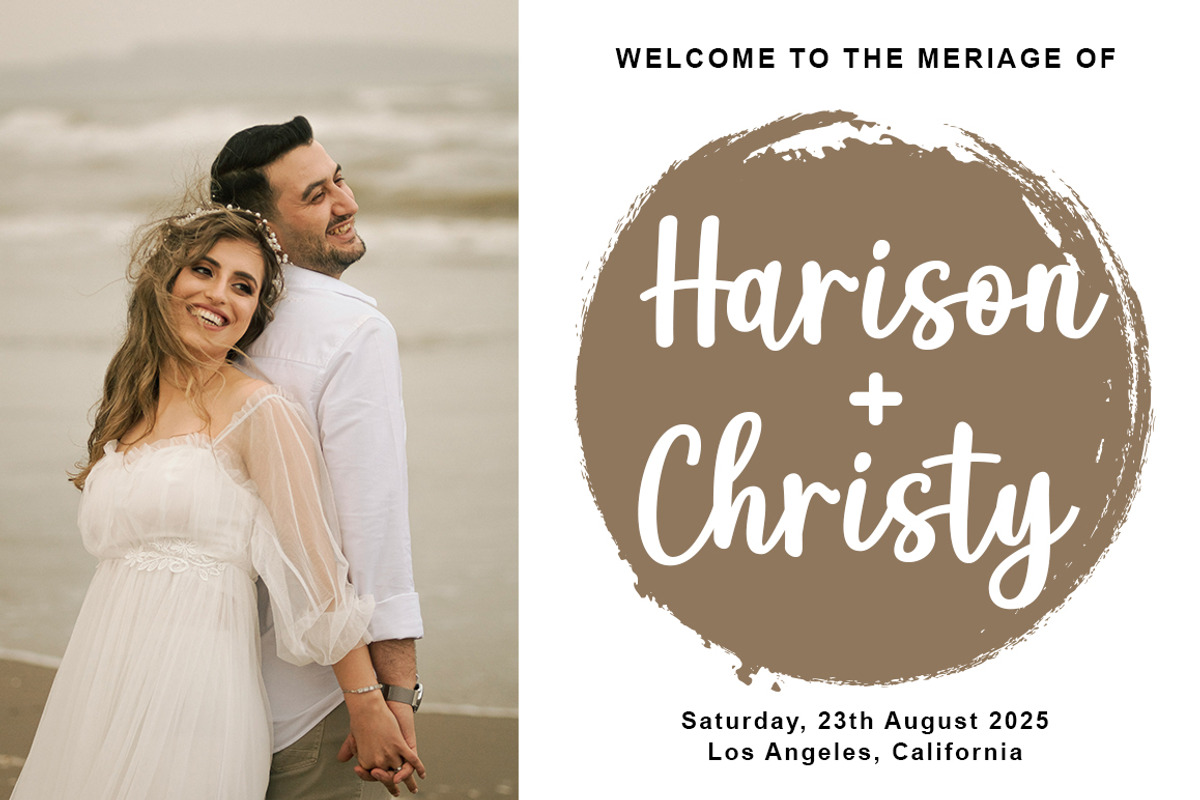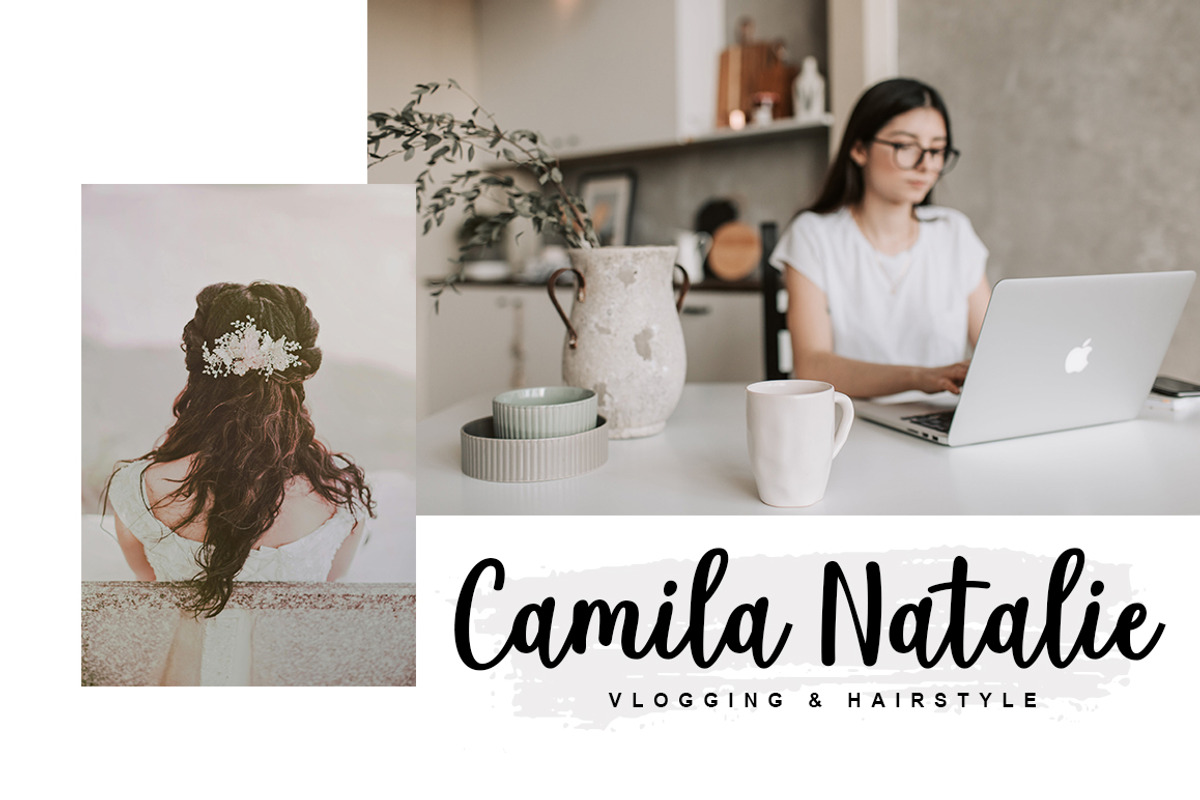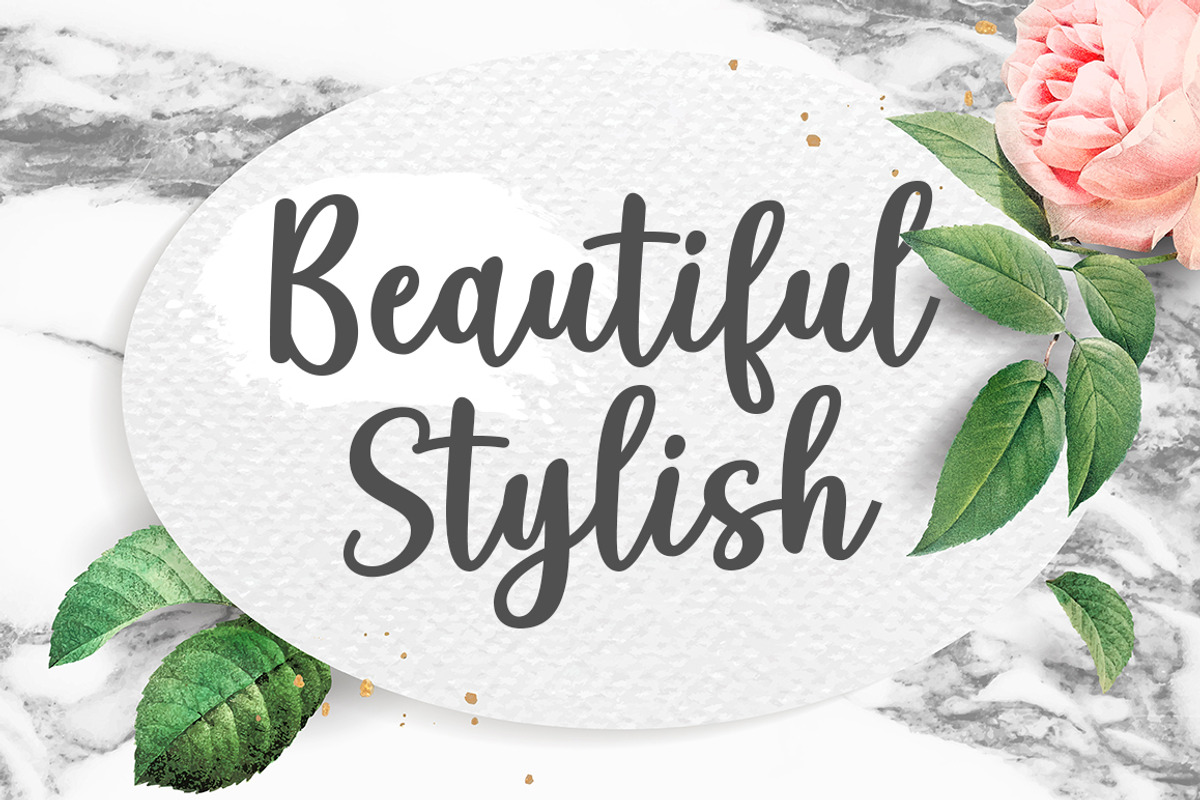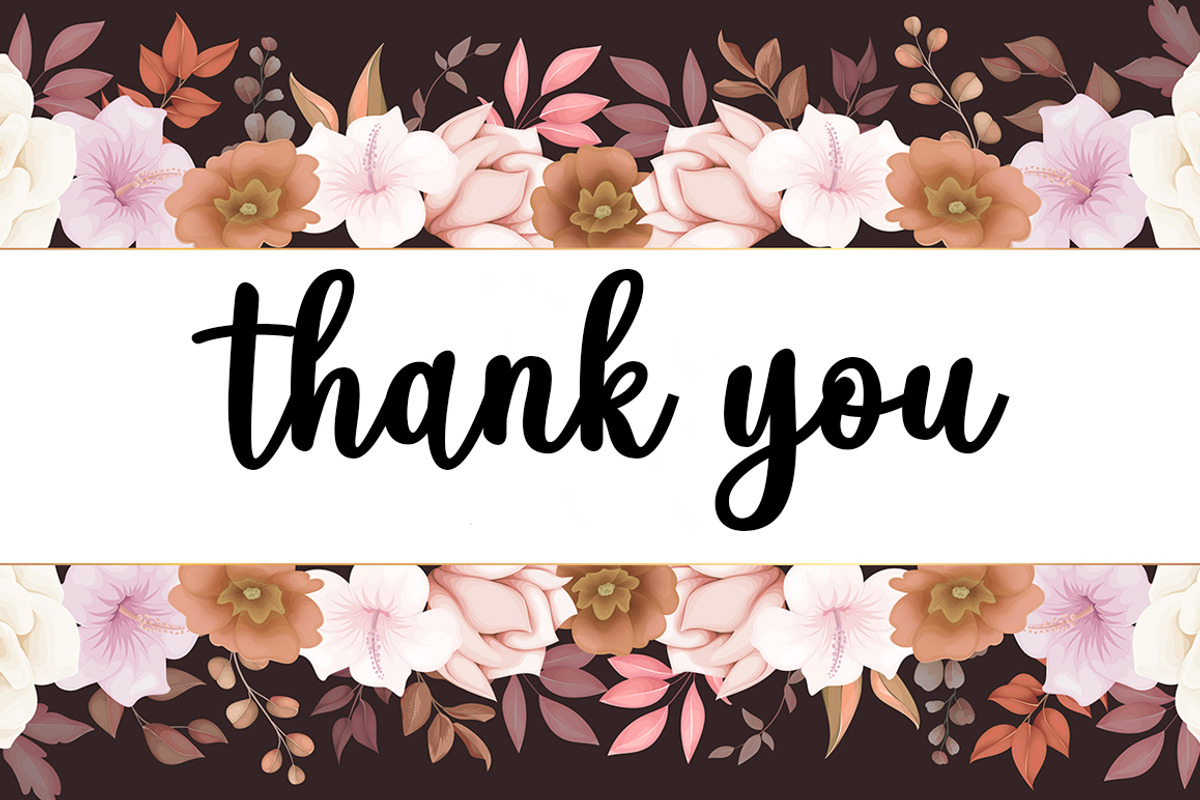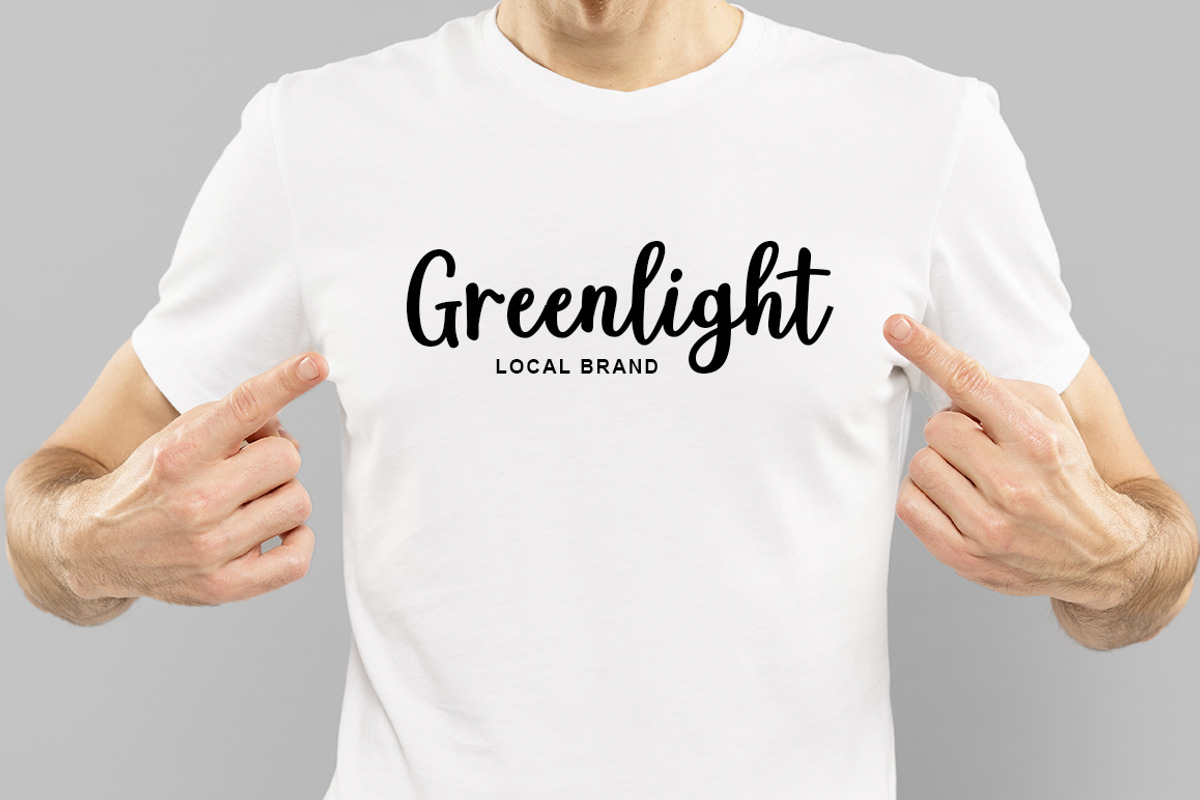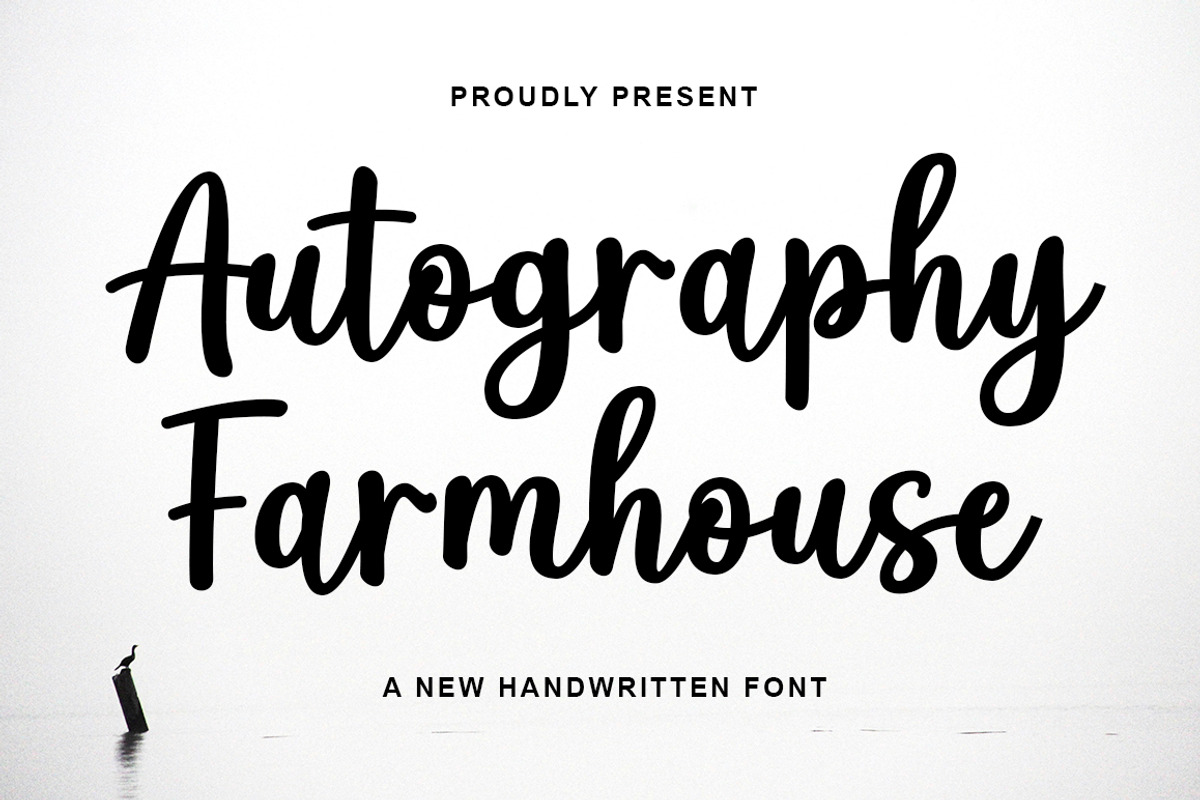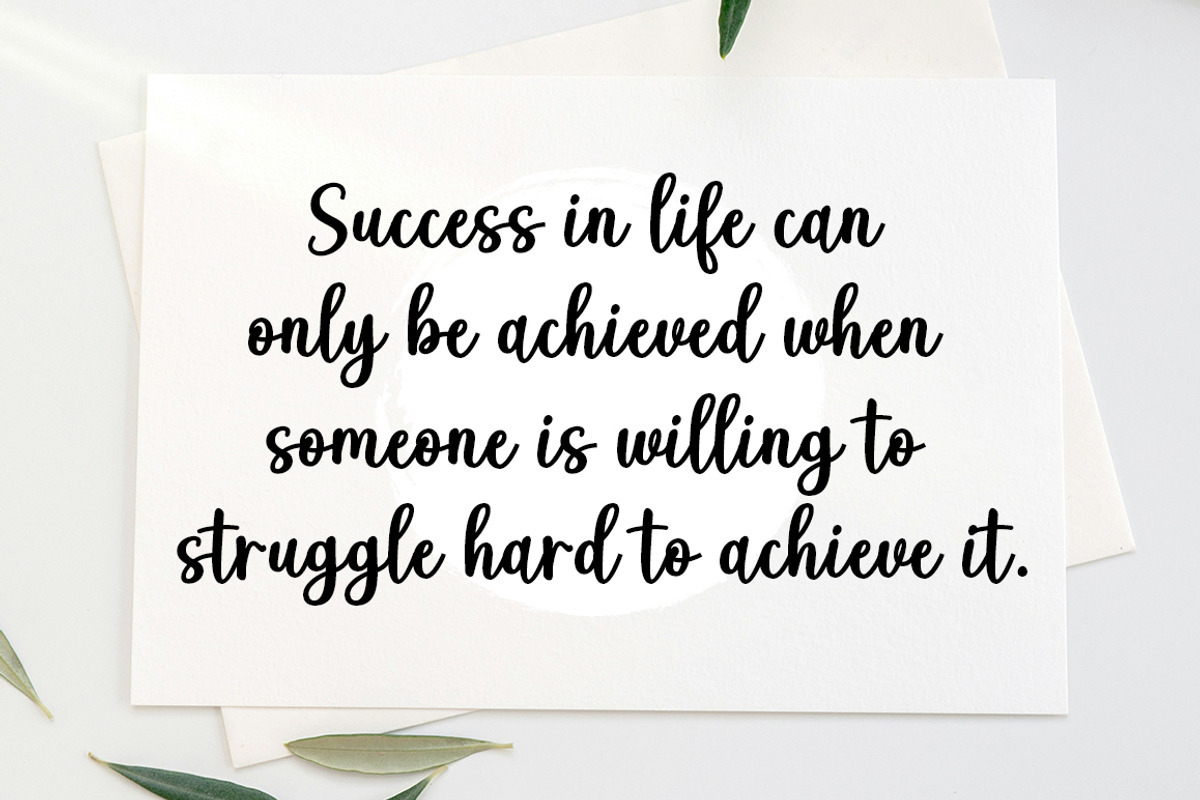
Autography Farmhouse
Autography Farmhouse is a handcrafted script, this style gives a feel of girly and Modern font type.
An Original typeface that is suitable for any graphic designs such as branding materials, t-shirts, prints, business cards, logos, posters, t-shirts, photography, quotes .etc
This font supports for some multilingual. Modern Script that contains uppercase A-Z and lowercase a-z, alternate characters, numbers 0-9, and some punctuation.